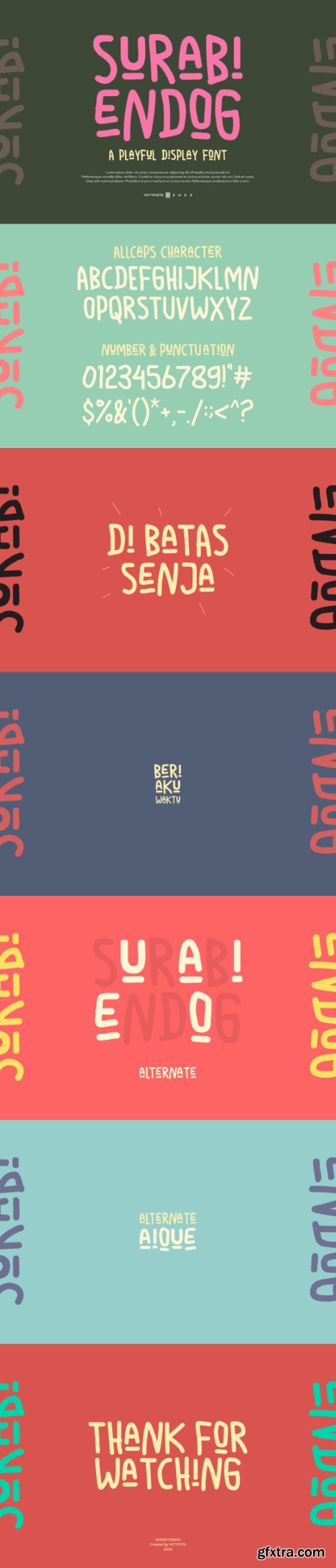
森巴·恩戈夫字体
“Surabi Endog” is a fun font, with a simple style but ready to complement your design project to make it more perfect.
“Surabi Endog” is suitable for quotes, video lyrics, coffee shop, cafe menus, book covers, titles, social media advertisements, packaging designs, and much more!